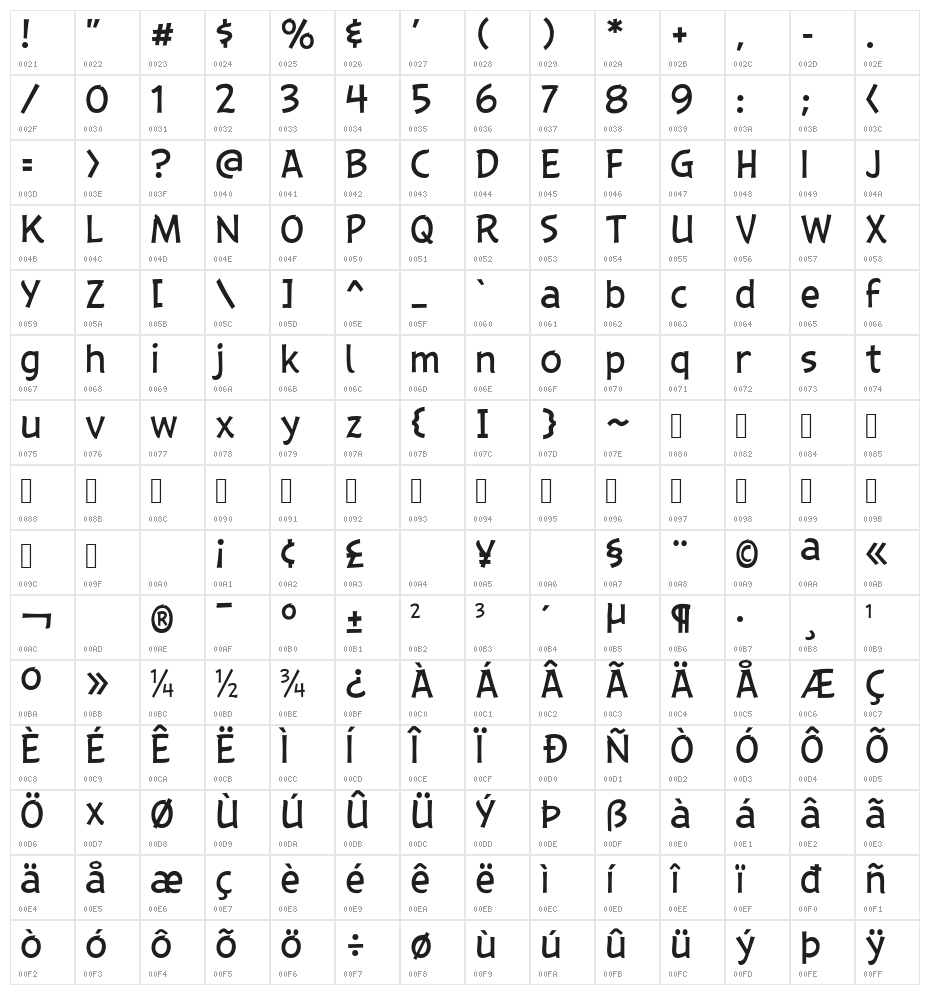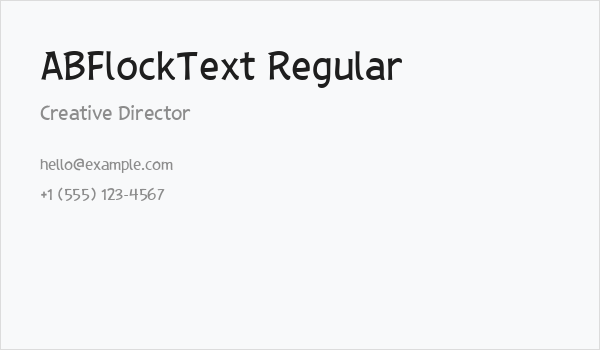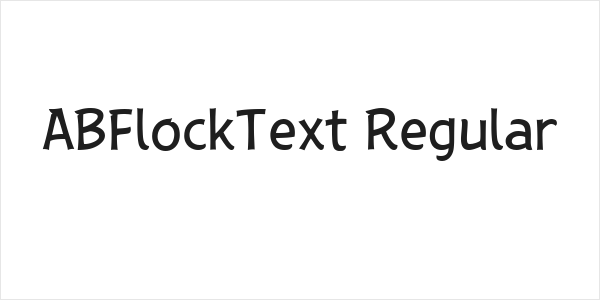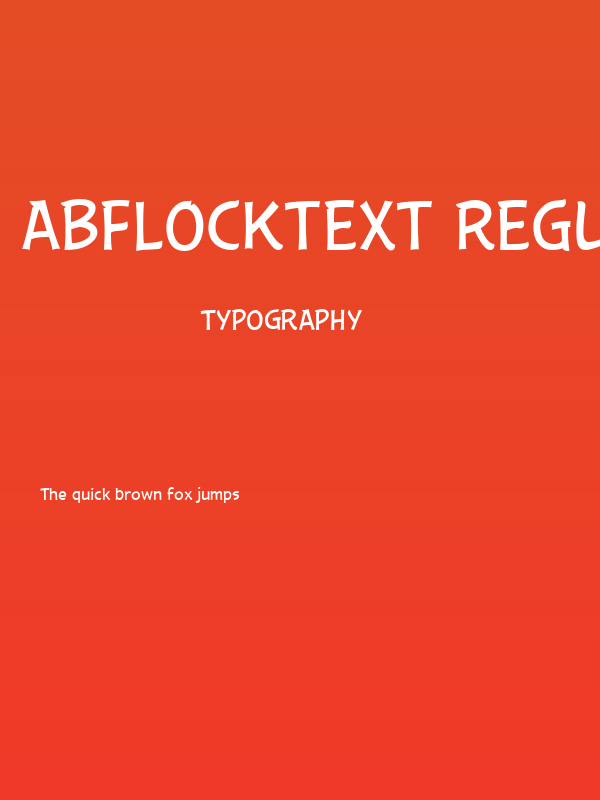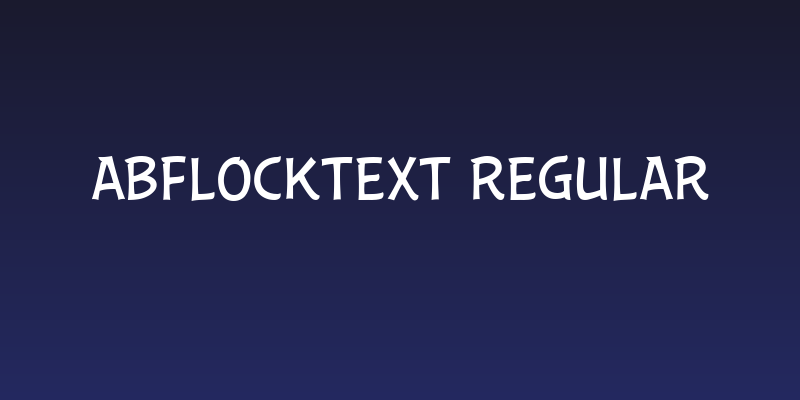
ABFlockText Regular Font
ABFlockText Regular Description
This font features a playful and informal style with a handwritten appearance. The characters are slightly rounded with a casual flow, giving it a friendly and approachable look. The uppercase letters maintain a consistent height, while the lowercase letters have a slight variation in size, adding to the font's charm. The numerals are clear and easy to read, matching the overall style of the alphabet. Special characters are included, maintaining the same whimsical design. This font is versatile and can be used in various creative projects.
| Overall Style | Casual |
| Use Case | Headlines, Logos, Informal text |
| Proposed Projects | Ideal for children's books, greeting cards, casual branding, and playful posters. |